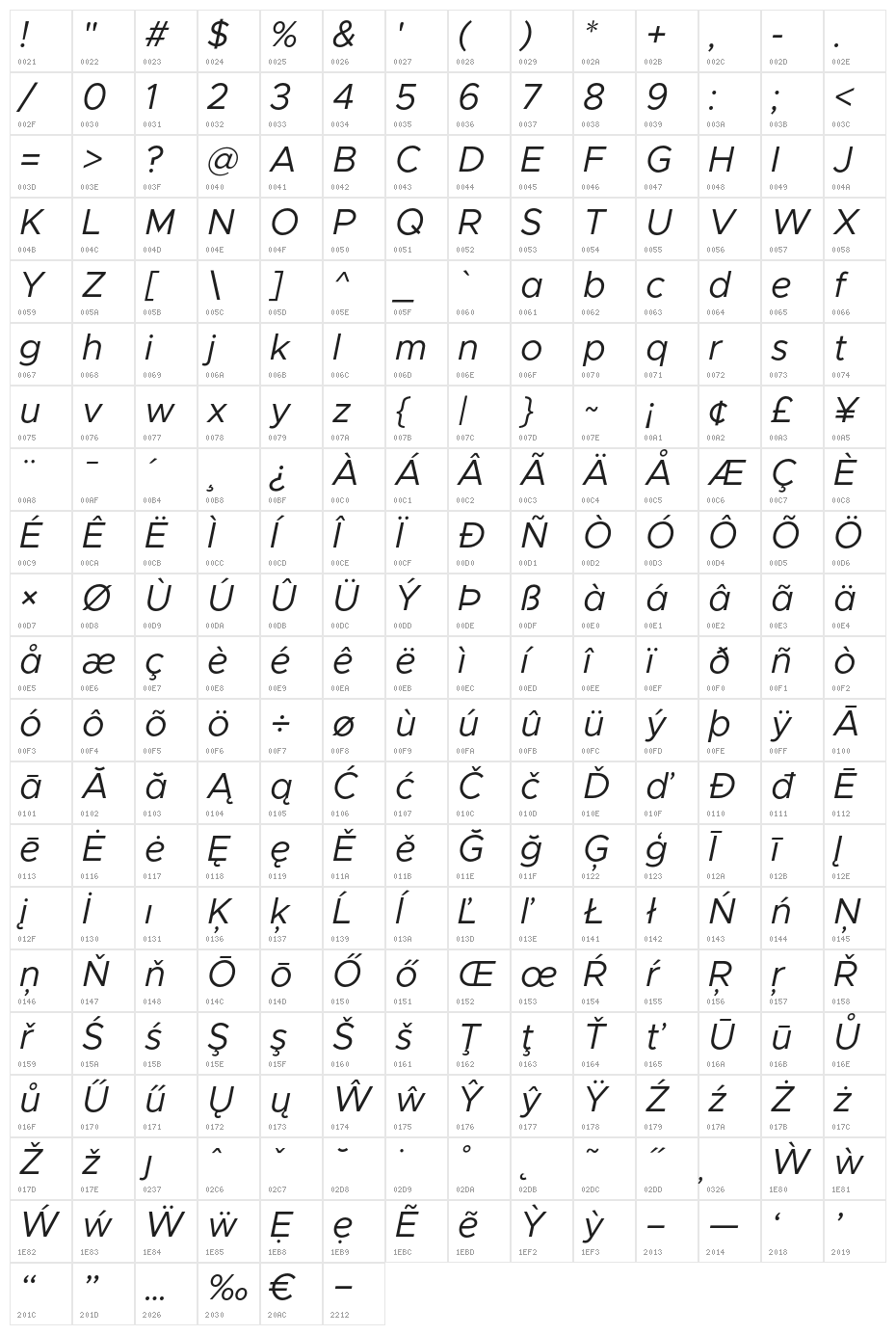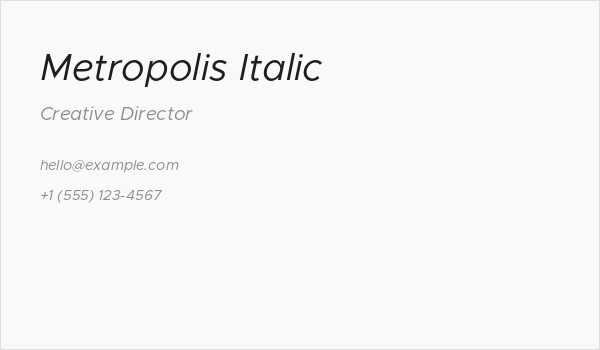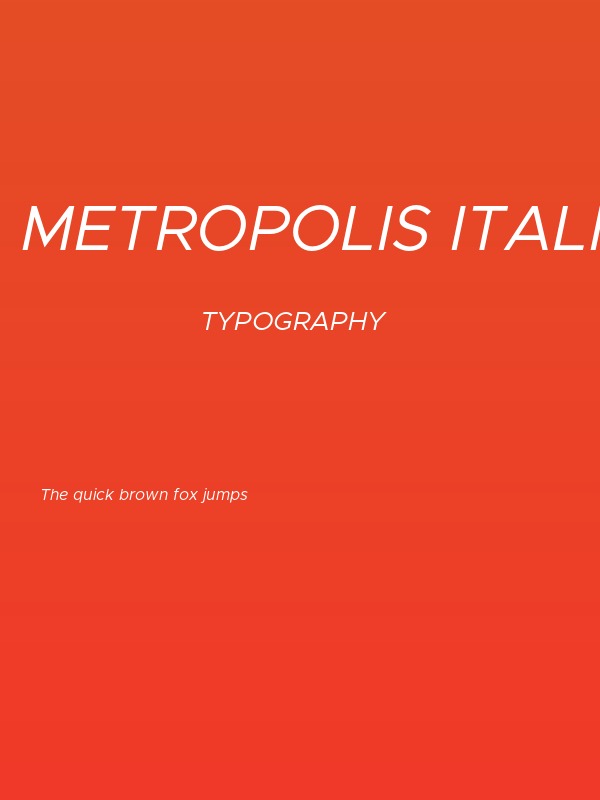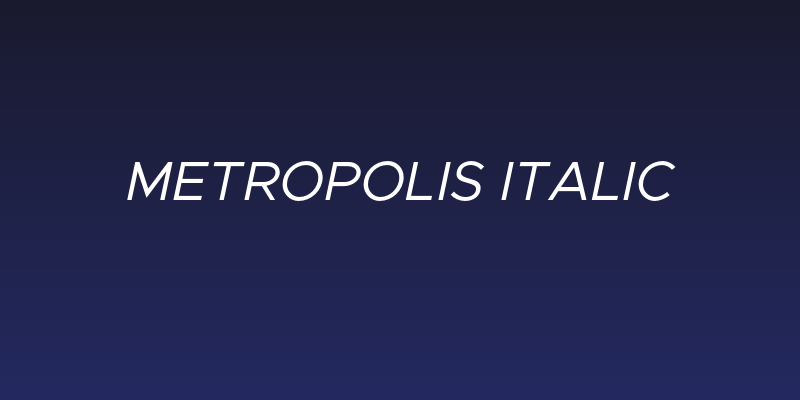
Metropolis Italic Font
Metropolis Italic Description
This font features a sleek and modern design with a slight italic slant, giving it a dynamic and forward-moving appearance. The characters are clean and geometric, with consistent stroke widths that provide a uniform look across all letters and numbers. The uppercase letters are bold and commanding, while the lowercase letters maintain a smooth and approachable style. The numerals are clear and legible, making them suitable for various applications. Special characters are well-integrated, maintaining the overall aesthetic of the font. This font's design is versatile, making it suitable for both digital and print media.
| Proposed Projects | Ideal for branding, advertising, web design, and editorial layouts. |